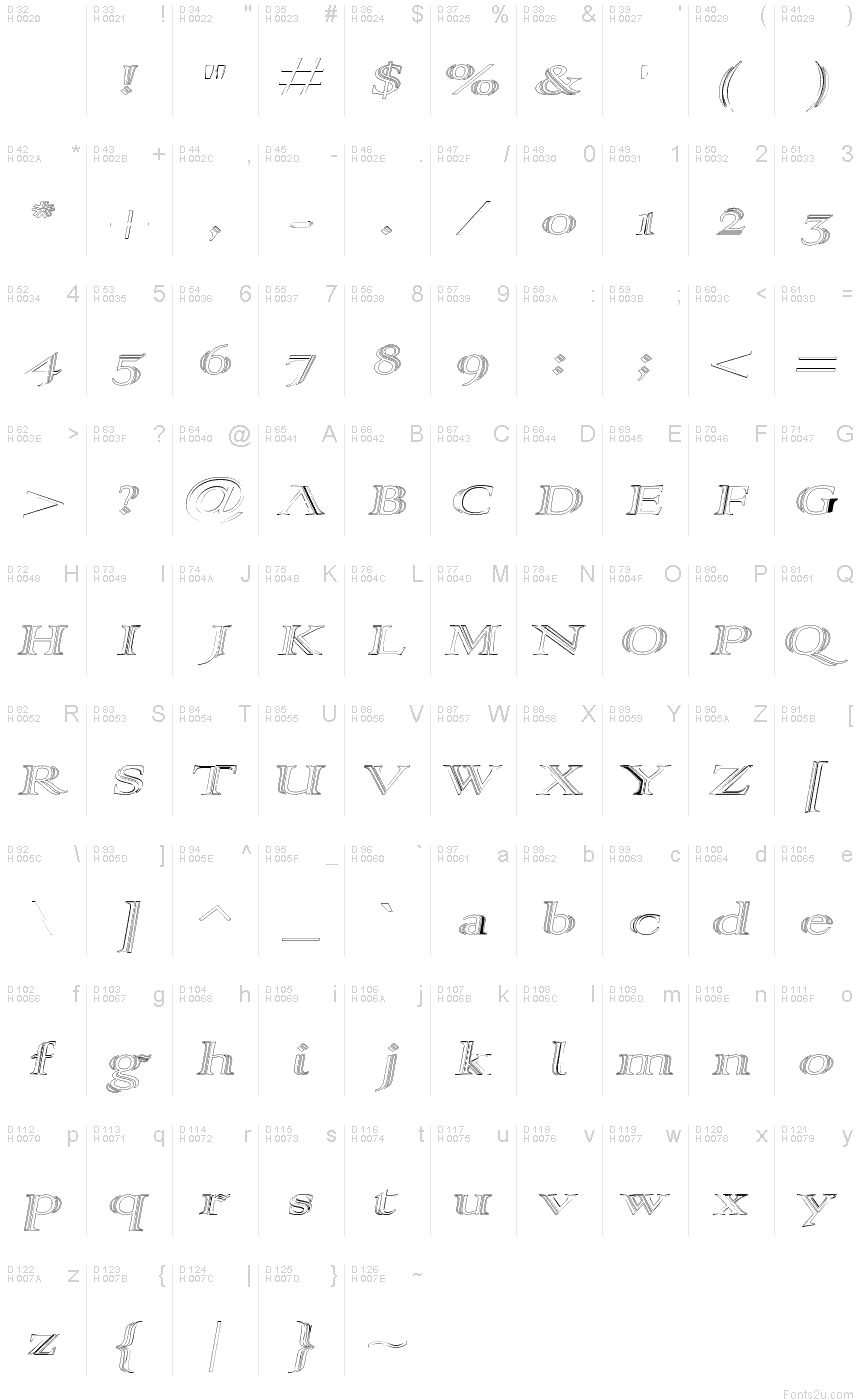
AlphaRev Hollow
AlphaRev Hollow font is a free decorative outlined display typeface that turns every letter into a delicate wireframe sculpture. Its repeated contour lines create a shimmering, optical effect—as if the strokes are vibrating off the page—while the slanted, serifed forms add a touch of literary drama. Set large, the hollow structure invites color, gradients, or image fills, giving designers a playful way to layer texture and light into headlines.
Using AlphaRev Hollow, you can instantly give posters, experimental book covers, album art, sci‑fi titles, event branding, and digital banners a striking, almost holographic presence. This free font works beautifully when paired with a simple geometric sans or clean serif for body copy, letting the intricate outline letters stay center stage. Keep it bold and oversized, and let plenty of white space breathe around those multi-line forms for maximum impact.
Adaptation GemFonts of Colonna TTF